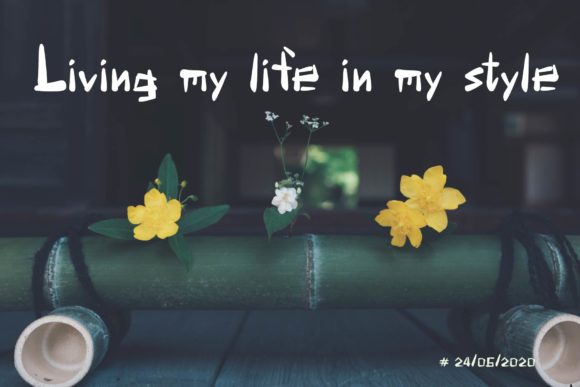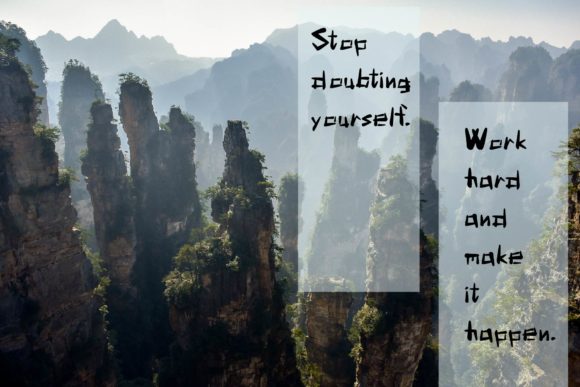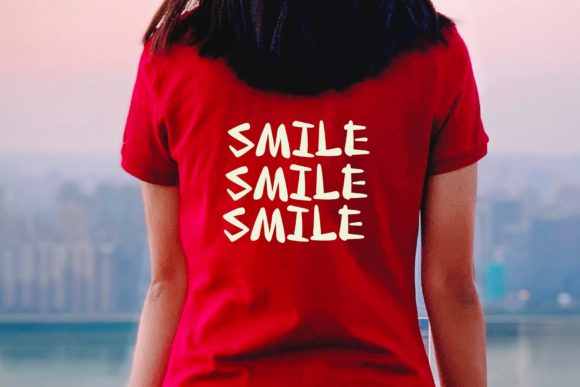
Bamboo Font: Elevate Your Designs with a Touch of Classic Elegance
In the world of typography, few fonts manage to strike a balance between classic sophistication and friendly approachability. Bamboo Font is one such gem that effortlessly merges timeless elegance with a warm, inviting feel. This unique display font is perfect for designers and crafters looking to infuse their projects with a touch of authenticity and charm. In this article, we’ll explore the distinctive features of Bamboo Font and how it can be used to create stunning wedding invitations, beautiful stationery art, eye-catching social media posts, and adorable greeting cards.
The Distinctive Charm of Bamboo Font
Bamboo Font stands out with its incredibly classic style, reminiscent of traditional typography that evokes a sense of nostalgia and warmth. Yet, it retains a friendly feel that makes it approachable and relatable. This unique blend makes Bamboo Font versatile and suitable for a wide range of design projects. Whether you’re aiming for a vintage look or a modern aesthetic with a classic twist, Bamboo Font is an excellent choice.
Features of Bamboo Font
- Classic yet Friendly: Bamboo Font boasts a classic design that is both elegant and welcoming.
- Versatile: Suitable for various design projects, including wedding invitations, stationery, social media graphics, and greeting cards.
- Unique Display Font: Stands out due to its distinctive and authentic feel.
Crafting Beautiful Designs with Bamboo Font
Bamboo Font’s authentic feel makes it an ideal choice for designers and crafters seeking to create visually appealing and heartfelt designs. Here are some ways you can use Bamboo Font to elevate your projects:
Wedding Invitations
Make your wedding invitations unforgettable with Bamboo Font. Its classic style and friendly feel perfectly capture the joy and elegance of your special day. You can pair it with floral patterns, watercolor backgrounds, or elegant illustrations to create invitations that are both beautiful and personal.
Stationery Art
Bamboo Font can transform your stationery into pieces of art. Use it for notebooks, journals, or letterheads to give them a unique and sophisticated look. You can combine the font with simple yet elegant designs, such as minimalist patterns or hand-drawn illustrations, to create stationery that stands out.
Social Media Posts
Create eye-catching social media posts with Bamboo Font to engage your audience. Whether you’re announcing a new product, sharing a quote, or simply posting a friendly hello, Bamboo Font can help you convey your message with style and warmth. Pair it with vibrant colors, playful graphics, or inspiring images to make your posts truly memorable.
Greeting Cards
Add a personal touch to your greeting cards with Bamboo Font. Whether it’s a birthday, anniversary, or holiday card, Bamboo Font can help you express your sentiments in a heartfelt and elegant way. Combine it with beautiful illustrations, floral designs, or simple yet meaningful messages to create cards that are both cute and sincere.
Tips for Using Bamboo Font
- Experiment with Colors: Bamboo Font looks great with both pastel shades and bold colors. Experiment with different color combinations to find the one that best suits your design.
- Pair with Complementary Fonts: For added versatility, try pairing Bamboo Font with complementary fonts to create visual interest and hierarchy in your designs.
- Play with Textures and Patterns: Add depth and texture to your designs by incorporating subtle patterns or textures that complement the classic feel of Bamboo Font.
| Font Name | Bamboo Font |
| Author | TANVARA DIGITAL ART |
Bamboo Font is more than just a display font; it’s a tool for designers and crafters to create beautiful, meaningful designs. Its unique blend of classic elegance and friendly approachability makes it perfect for a wide range of projects. Whether you’re designing wedding invitations, crafting stationery art, creating social media posts, or making greeting cards, Bamboo Font can help you achieve your design goals with style and authenticity. So, get inspired by its charm and let Bamboo Font elevate your designs to new heights.